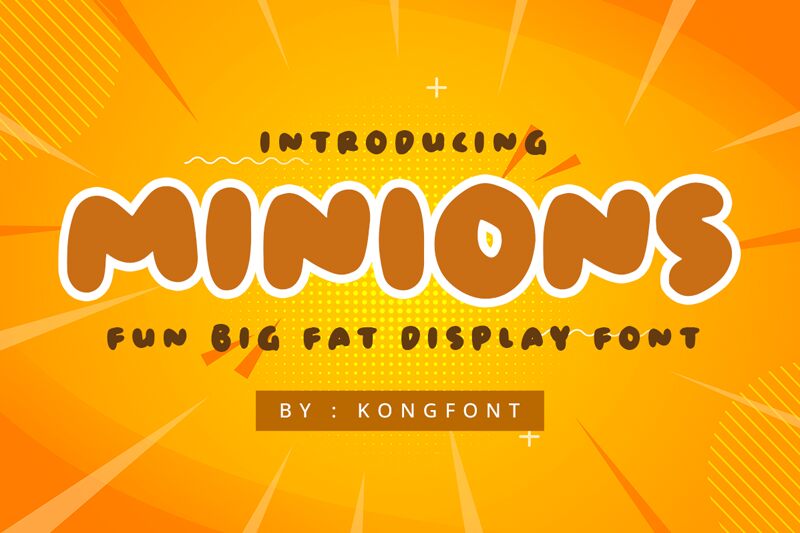
Minions font is a free cartoon font designed by Kong Font. This cheerful typeface embodies a playful and whimsical style with a modern touch. With its energetic, eye-catching, and bold presence, Minions is perfect for those who want to captivate their audience effectively. The friendly and contemporary display manner is yet another delightful feature that adds to the font’s appeal.
Minions can be used in a variety of projects, with the most popular ones including posters, flyers, art prints, magazines, newspaper covers, websites, social media banners, signboards, commercials, branding, and logo/monogram designs.